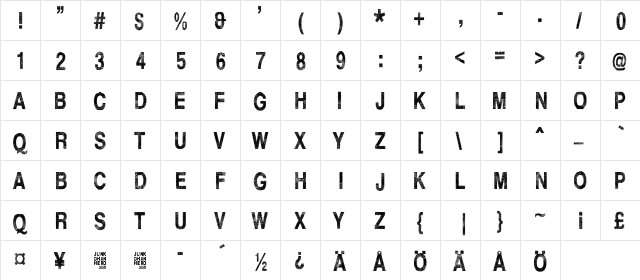
Hell Finland Regular
Hell Finland takes a measured approach to typography — its balanced proportions and neutral character make it a reliable workhorse for both digital and print work.